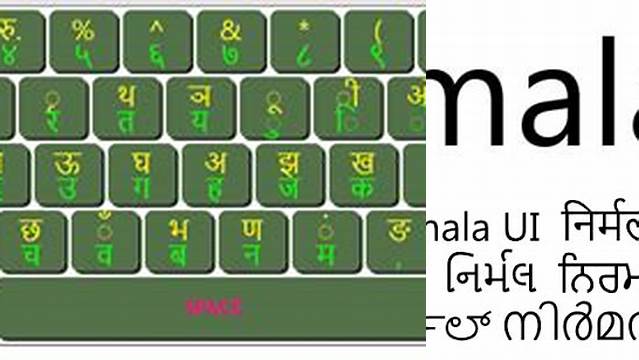
1. What is Nirmala UI Hindi Font?
So, what exactly is Nirmala UI Hindi Font? Simply put, it's a typeface designed by Microsoft to provide a clear, legible, and aesthetically pleasing rendering of Hindi script in digital environments. This font is part of the Nirmala UI family, which supports various Indic scripts. It's designed to ensure that text is easily readable on screens, making it a favorite among users who frequently work with Hindi text. The elegance of Nirmala UI Hindi lies in its simplicity and functionality. It is crafted to display complex characters with clarity, reducing strain on the eyes and improving overall readability. Whether you are drafting documents, creating presentations, or designing web pages, having Nirmala UI Hindi can significantly enhance the user experience.
Additionally, Nirmala UI Hindi Font is often pre-installed on Windows systems, but sometimes, you might need to download or reinstall it to ensure it's available for your applications. This font has become a standard choice for many due to its comprehensive support and clear presentation of Hindi characters. The design considerations for this font include optimizing the spacing between characters, stroke thickness, and overall visual balance, contributing to its widespread adoption across different platforms and applications. It's definitely a font you want in your arsenal if you deal with Hindi text regularly.
2. Why Use Nirmala UI Hindi Font on Windows 10?
Why should you even bother with Nirmala UI Hindi Font on Windows 10? Well, there are several compelling reasons. First off, it offers excellent readability, which is crucial when dealing with complex Hindi characters. If you're writing documents, creating presentations, or designing websites, a clear font can make all the difference. Secondly, Nirmala UI is designed to be consistent with the overall Windows UI, providing a seamless and professional look. Imagine using a font that clashes with everything else on your screen – not a great experience, right? The consistency extends to different applications as well, ensuring that your text appears uniform across various programs. This consistency is especially vital for professionals who require a polished and cohesive look in their work.
Moreover, Nirmala UI Hindi Font is optimized for screen display, meaning it looks sharp and clear even at smaller sizes. Other fonts might appear blurry or distorted, but Nirmala UI maintains its legibility, reducing eye strain and improving productivity. Also, having a dedicated Hindi font ensures proper character rendering, preventing issues like missing glyphs or incorrect character display, which can be common with generic fonts. Lastly, because it’s a Microsoft-designed font, it integrates well with Windows 10, minimizing compatibility issues and ensuring smooth performance. Basically, it's a no-brainer if you frequently work with Hindi text on your Windows 10 system!